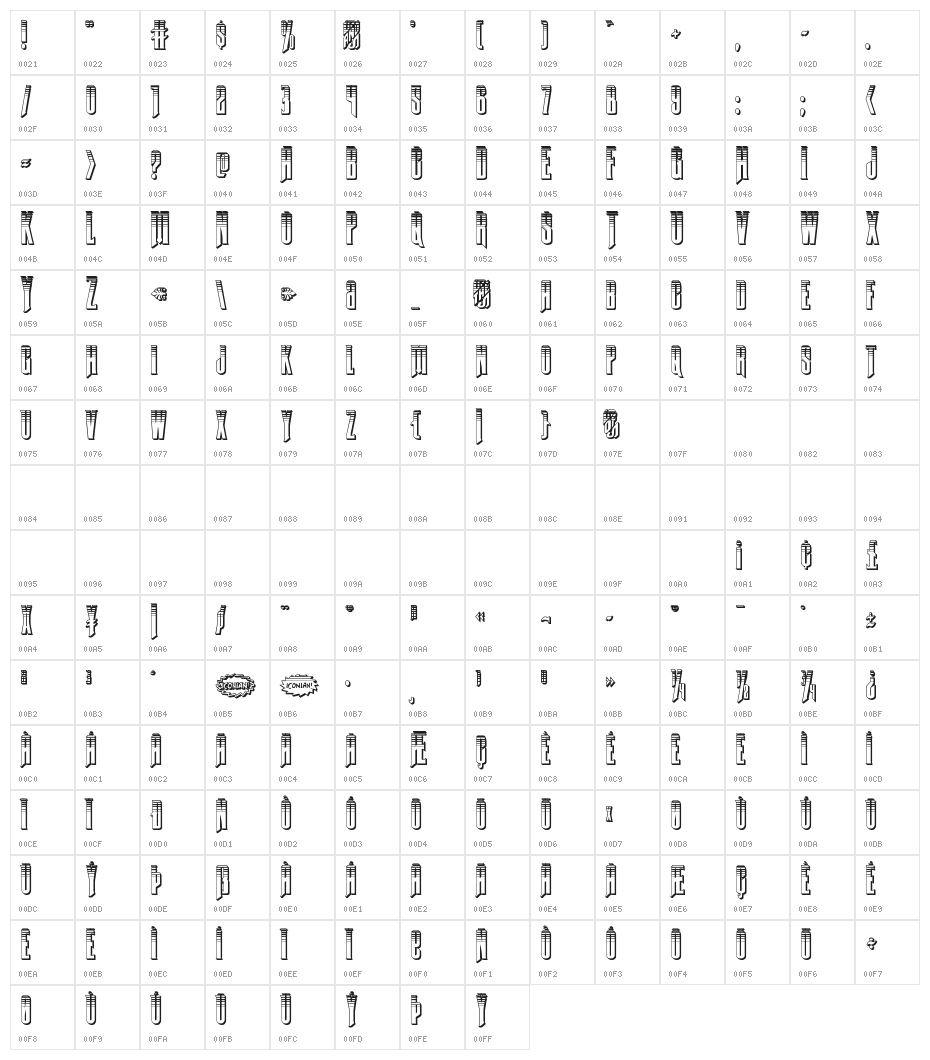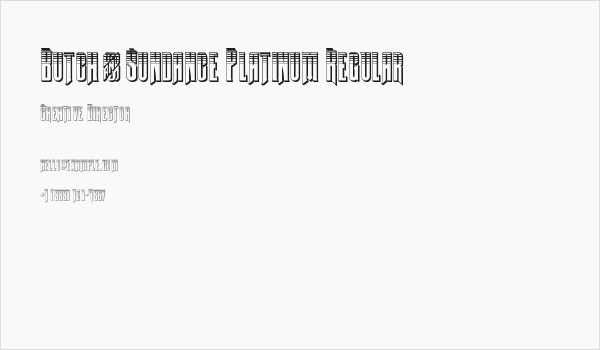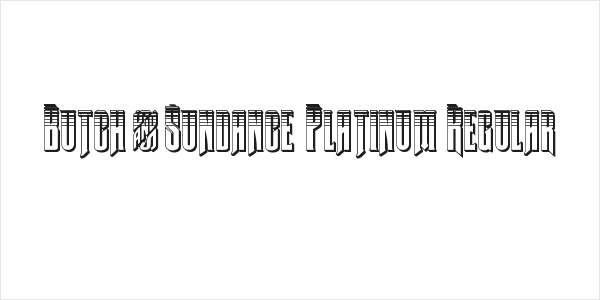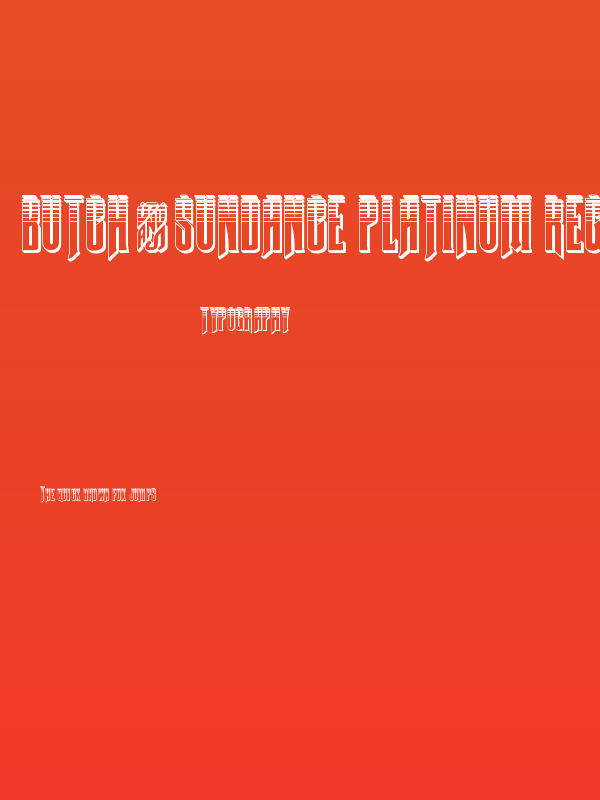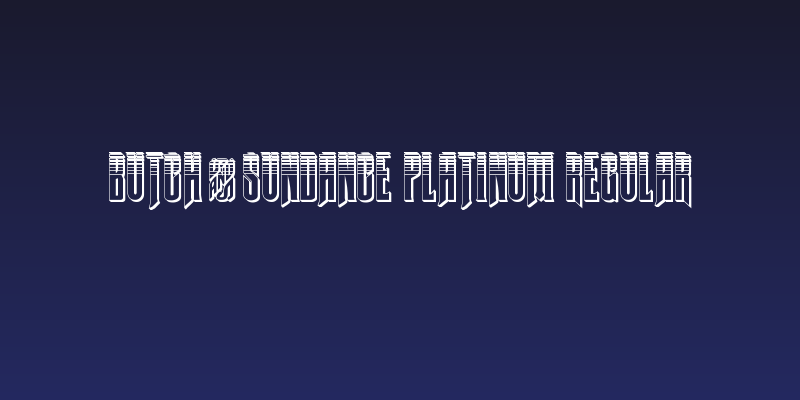
Butch & Sundance Platinum Regular Font
Butch & Sundance Platinum Regular Description
This font features a bold and striking design with a distinct Western-inspired aesthetic. The uppercase letters are characterized by a strong vertical emphasis, with a unique striped pattern that adds depth and dimension. The lowercase letters maintain a consistent style, ensuring readability while preserving the decorative elements. Numbers and special characters are designed to match the boldness of the alphabet, making them suitable for attention-grabbing displays. The overall style is reminiscent of vintage posters, with a modern twist that makes it versatile for various design projects.
| Proposed Projects | Ideal for posters, branding, and any project requiring a bold, vintage aesthetic. |